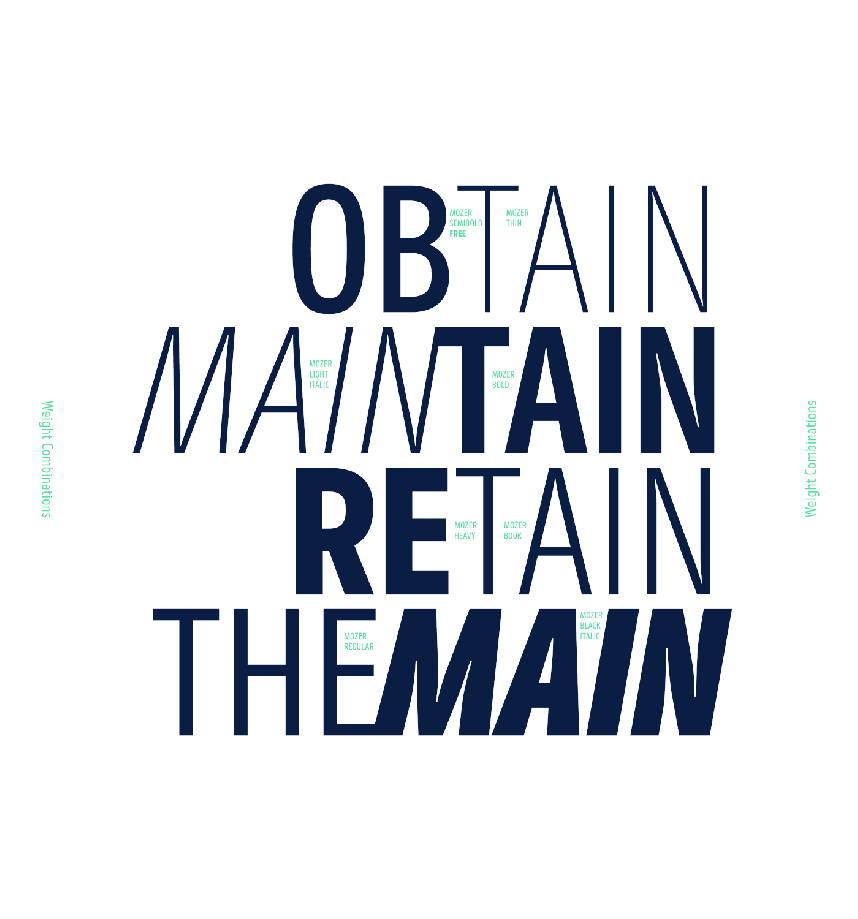
Mozer Font Family
Mozer Font Family – Free Demo
This is contemporary sans-serif typeface made up of 16 fonts. It’s a unique and modern sans typeface, which is well suited for a variety of typographic applications such as headlines and small texts. Introducing Mozer Sans Serif Family! Mozer Font is a semi-condensed neo-grotesque type family of 16 styles, ranging from Thin to Black and matched with true italics. With a generous x-height, economical width, moderate contrast and an all-around solid appearance, this typeface lends itself well to headlines. Uncompromising legibility meets a distinct contemporary spirit, visible even in small details like the discrete ink traps. Mozer covers Extended Latin, Cyrillic and Greek and is suited with plenty of OpenType features, such as localizations, ligatures; four types of numerals including figures and tabular; case-sensitive forms; alternatives, and more.